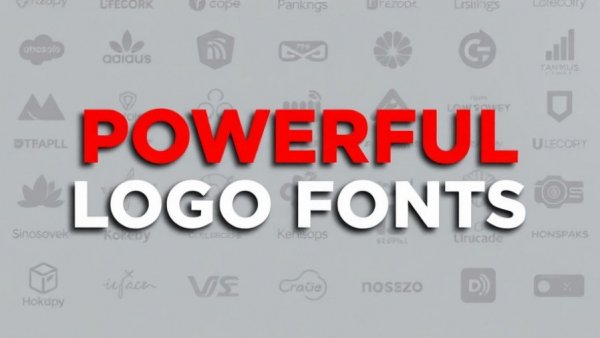
Unlocking Brand Identity: Discover Powerful Logo Fonts for Your Business
Bold text design showcasing powerful logo fonts in red and white.
Elevate Your Brand with the Right Logo Fonts
Your logo is often the first impression customers have of your brand, making the choice of logo font critically important. The right typeface can convey your brand's personality and values, while the wrong choice may diminish your brand's impact.
Choosing the Perfect Font for Your Brand Identity
As we explore various powerful logo fonts, remember that it's essential to align your font choice with your brand's voice. Whether you are a tech startup or a cozy café, the typography should echo your mission. The right font enhances readability and scalability across different mediums, so when designing, consider where your logo will be presented—be it on social media, print advertisements, or product packaging.
How Logo Fonts Shape Perception
Fonts are more than decoration; they are visual messengers that deliver immediate context about your business. For instance, bold and modern fonts resonate with tech companies looking to project innovation, while more traditional serif fonts may evoke trust and reliability for financial institutions.
Given the multitude of options available, how can a business owner determine which font aligns with their identity? For example, fonts like Bodoni and Helvetica offer timeless elegance and modernity, respectively. Brands like Vogue utilize Bodoni for its dramatic effect, while Helvetica’s versatility makes it a perennial favorite for many logos.
Essential Factors to Consider When Selecting Logo Fonts
When choosing a logo font, keep in mind the following elements:
• Readability: Ensure your font is legible at various sizes. Avoid ornate fonts that might challenge quick understanding.
• Simplicity: A clean design often leads to a more professional look. Minimalistic fonts tend to function best across various media.
• Brand Representation: Choose fonts that reflect your brand's identity. A lively, organic font may suit a wellness brand, whereas a robust sans serif would resonate better with a tech firm.
• Consistency: Your logo font should harmonize with your overall branding materials, from your website to product packaging.
The Top 10 Fonts for Professional Branding
Here’s a narrowed selection of top logo fonts, acclaimed for enhancing brand identity:
1. Helvetica: This is a classic choice known for its clean lines and versatility.
2. Proxima Nova: A blend of modernity and readability, ideal for digital platforms.
3. Bodoni: Perfect for high-end branding, this serif font exudes elegance.
4. Futura: Its geometric style speaks well to modernity and innovation, suitable for a tech-savvy audience.
5. Avenir: A contemporary sans serif that offers warmth with a clean aesthetic.
6. Montserrat: A modern take that's ideal for both digital and traditional branding.
7. Gotham: This strong and bold font works well for authoritative branding.
8. Baskerville: Notably lending an air of sophistication, this serif font excels in more formal contexts.
9. Trade Gothic: Known for its straightforward, clean appearance, it works well in various applications.
10. Gill Sans: This timeless typeface is versatile enough for both corporate and creative uses.
Test, Refine, and Inspire: The Process of Choosing a Logo Font
The journey to finding your font doesn't end with selecting a typeface. Testing how it performs in real-world applications is crucial. See how your chosen font looks in different sizes and formats. Often, fonts that excel on screens may falter when printed, so it's key to ensure they hold up well across various platforms.
Finding Local Graphic Design Services
If you feel overwhelmed by the choices or need tailored assistance in defining your brand identity, it may be advantageous to reach out to a local graphic designer near you. They can provide insight and personalized suggestions, enhancing your logo's efficacy. Factors to consider include their portfolio, client testimonials, and expertise in branding strategies.
By engaging with a business logo designer near you, you can create a logo that distinguishes your brand from competitors while aligning with your business's core values.
Conclusion: Your Brand Deserves the Right Typeface
Ultimately, choosing the right logo font is vital in crafting a strong brand identity. It impacts recognition, trust, and future engagements with your audience. So do not rush the process; take your time to explore options, seek professional guidance, and test your logo in multiple contexts. Remember, your choice of typography is fundamentally about conveying your brand's story—make sure it's a compelling one.